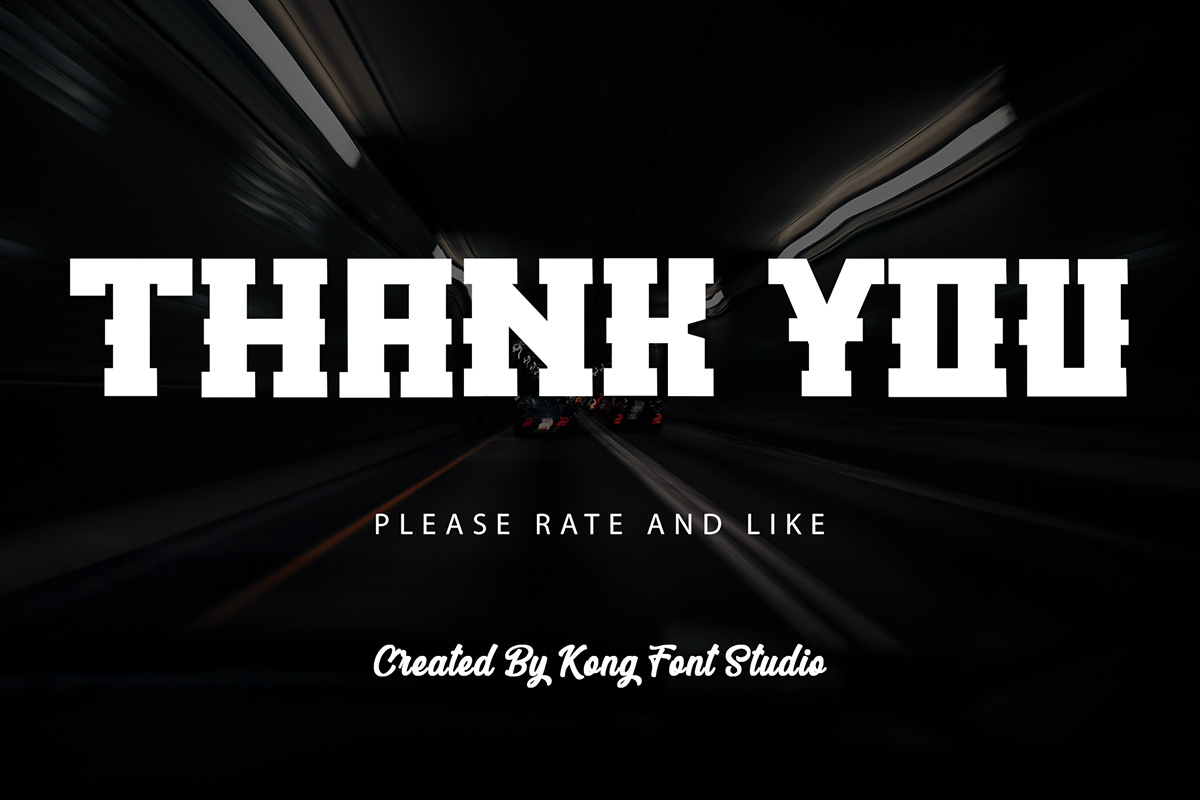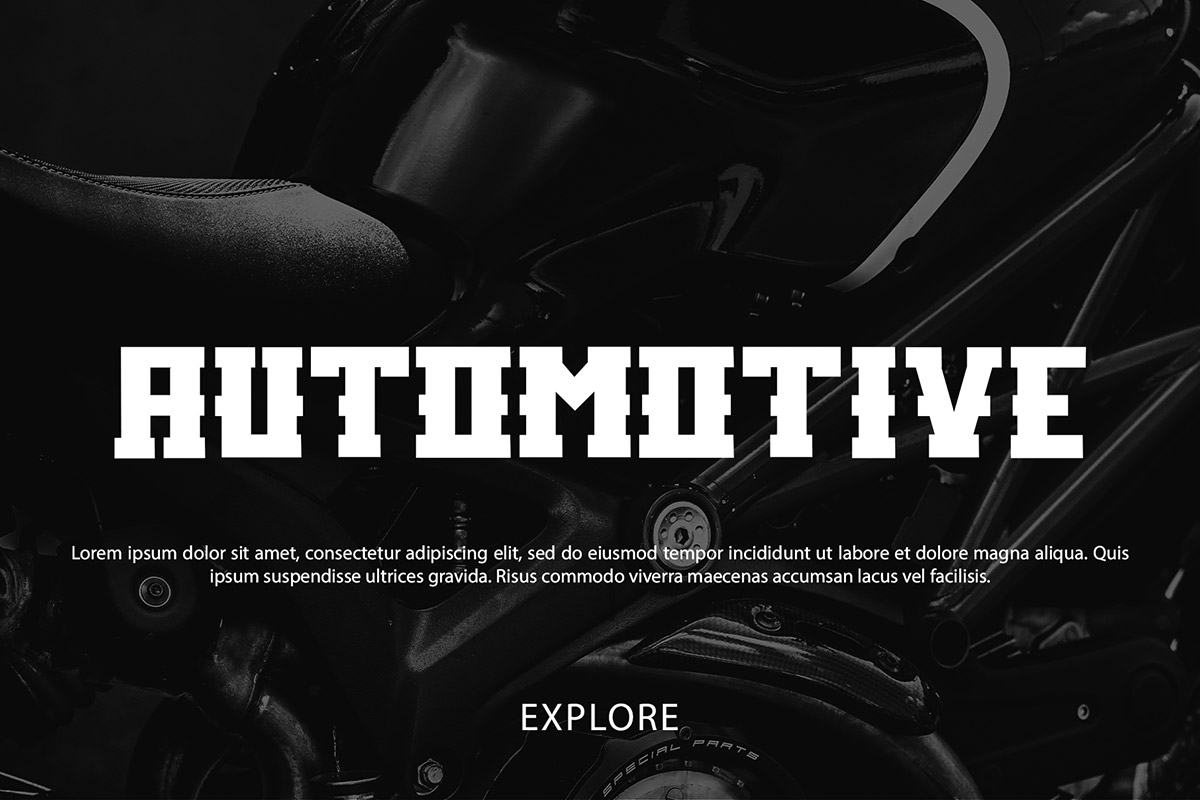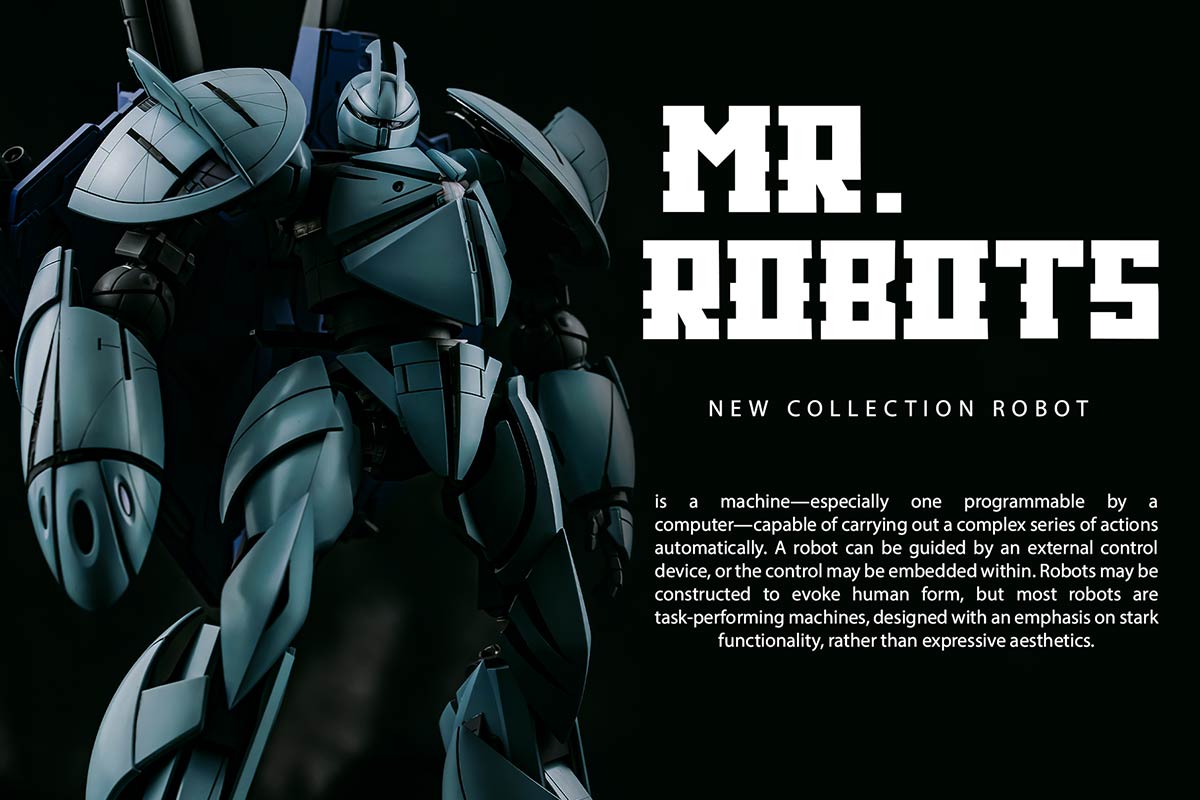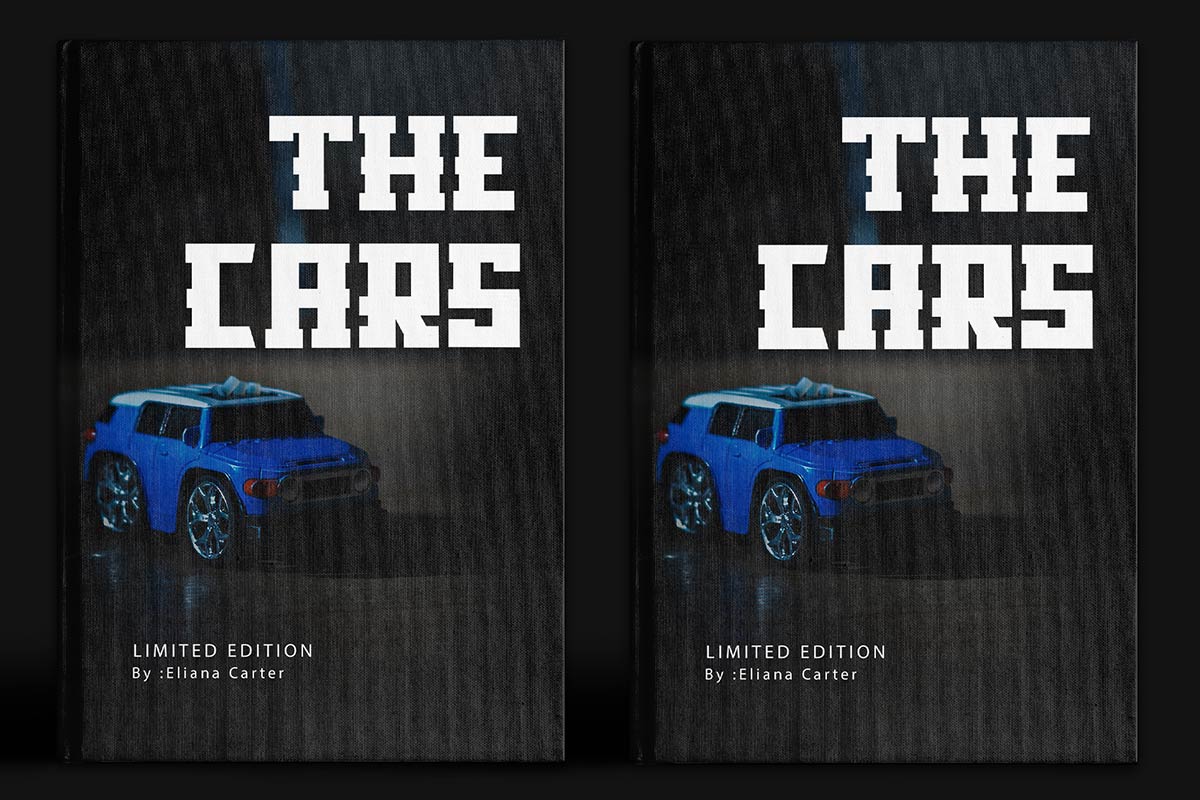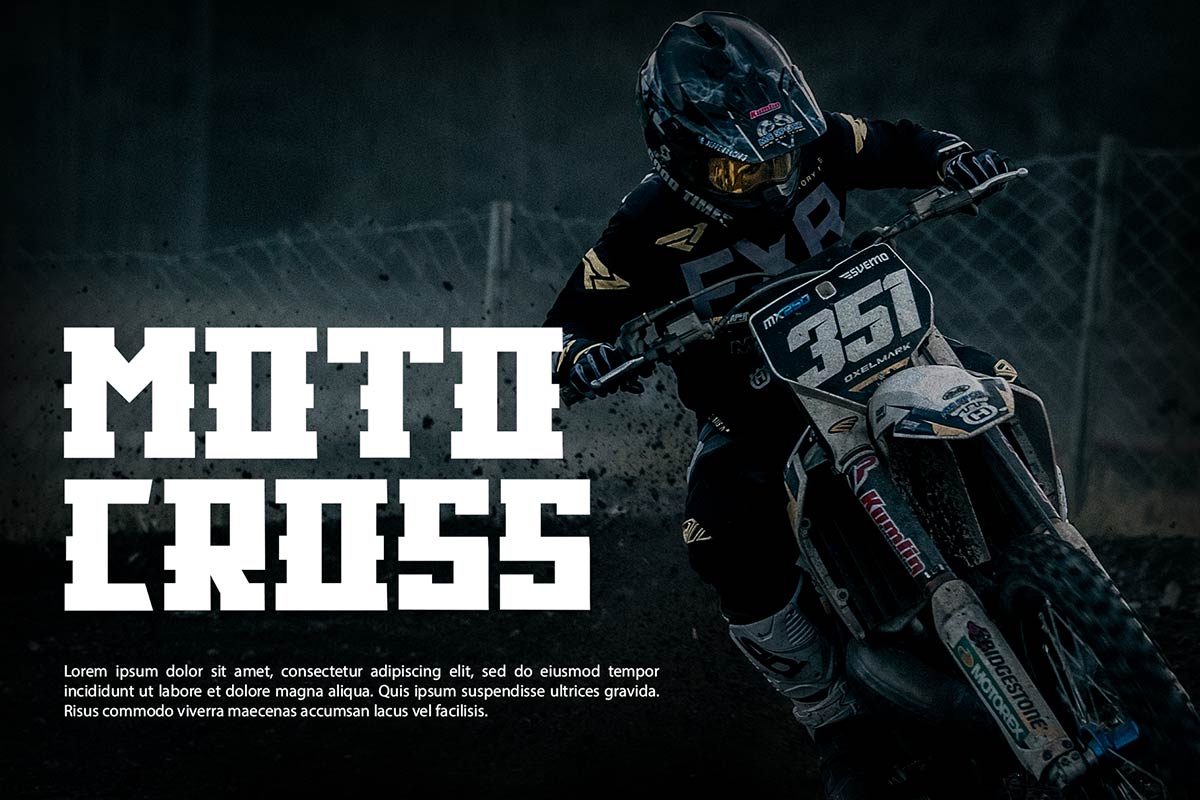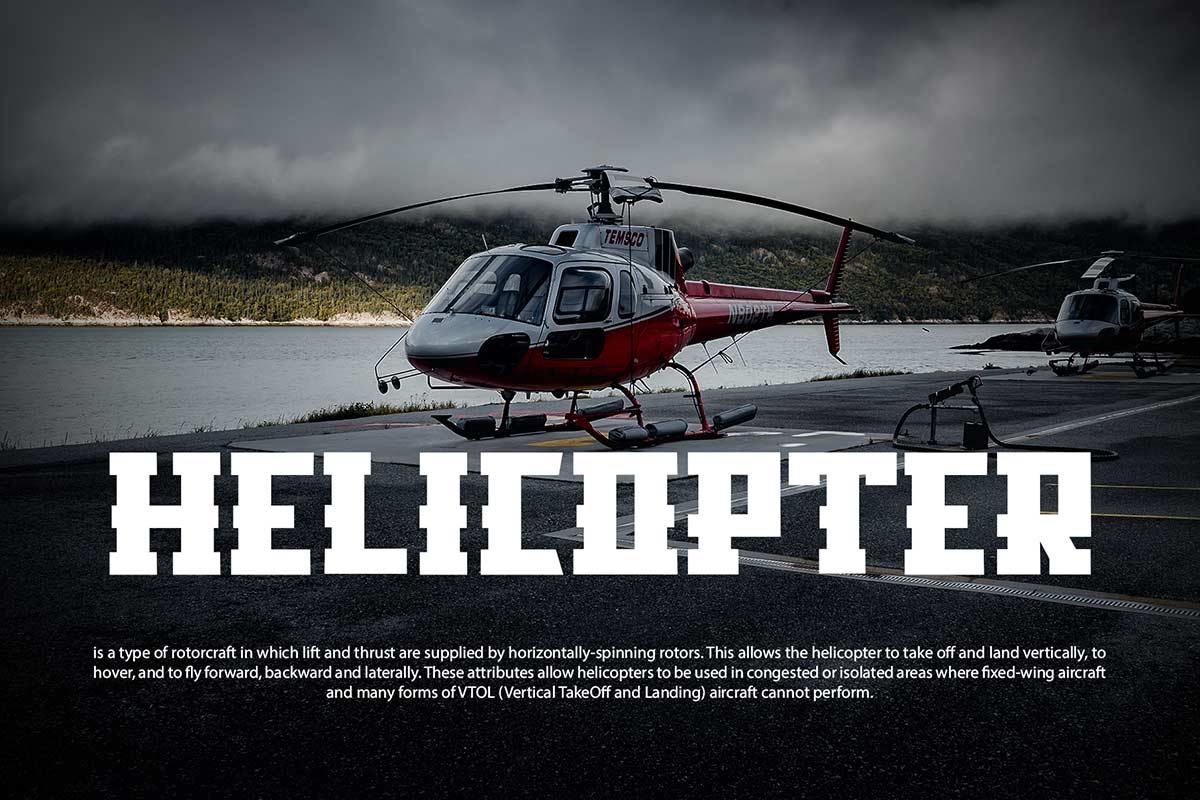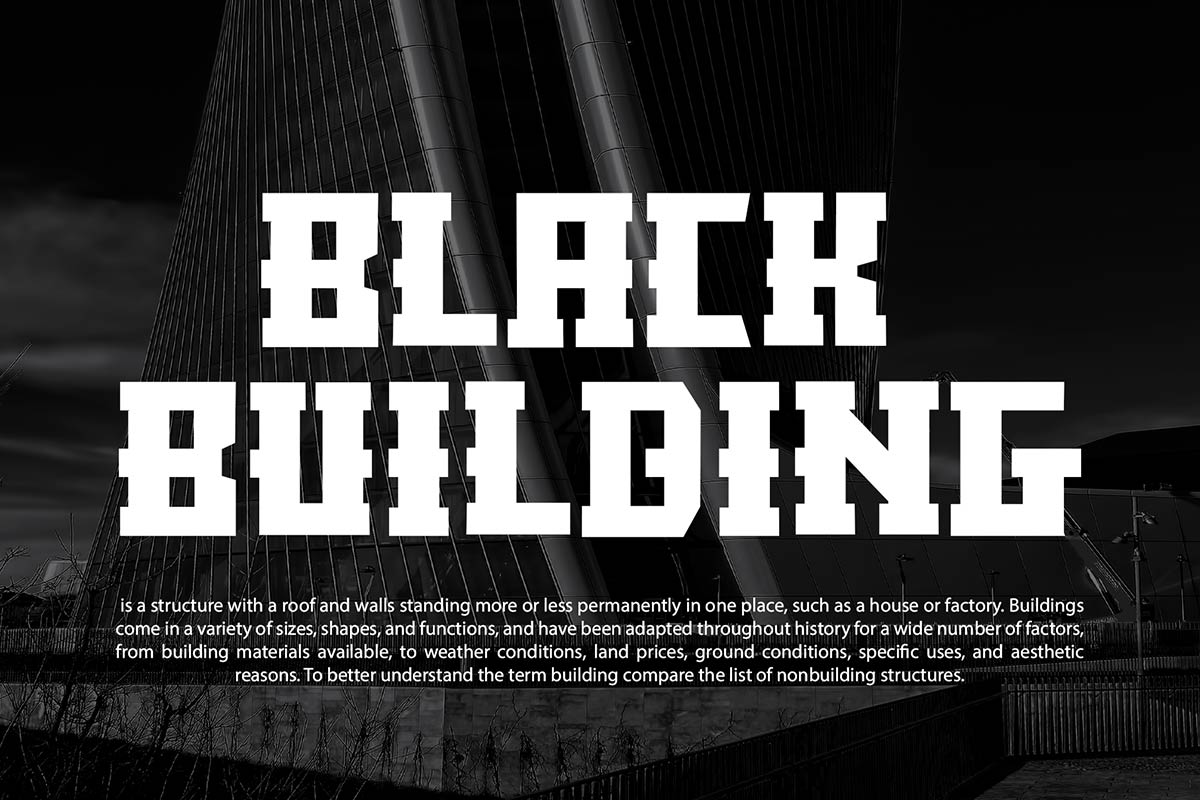
Klock Display Font Many serif fonts are available as an option for all of us. Klock Modern Serif Font is a font with an elegant, stylish, and modern impression. This impression is what makes this font different from other serif fonts. Klock Modern Serif Font has a simple shape and a moderate serif. This font has sharp edges. The characters described above make the Klock Modern Serif Font one of the best fonts that have high compatibility for branding beauty products. Klock Modern Serif Font can use on product packaging, posters, advertisements, and magazines. This font can use as a digital font and printed with the appropriate font size because they are supported by legible font types. Apart from being a product branding font, the Klock Modern Serif Font is also the best font that has high compatibility when used for social media, feed posts, and Instagram stories. With the presence of the Klock Modern Serif Font, it is hoped that it can increase your choices for serif font lovers in choosing the appropriate font for the object you are going to mix. Our collection of serif fonts is compatible for use as; Figma Fonts, Canva Fonts, Freepik Fonts, and Adobe Fonts. They also work as Windows Fonts and Apple Fonts. For your social media needs, you can use and install fonts in our collection of serif fonts to use as Instagram Fonts, Facebook Fonts, and Twitter Fonts.